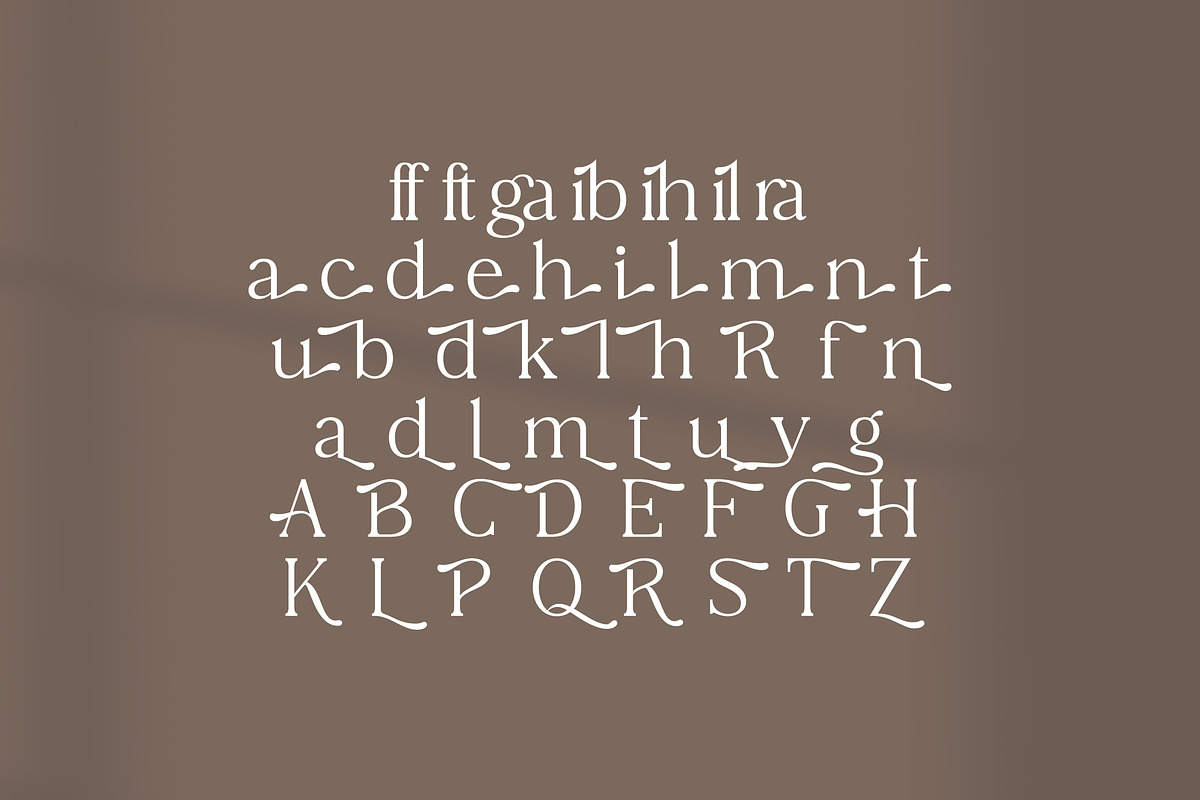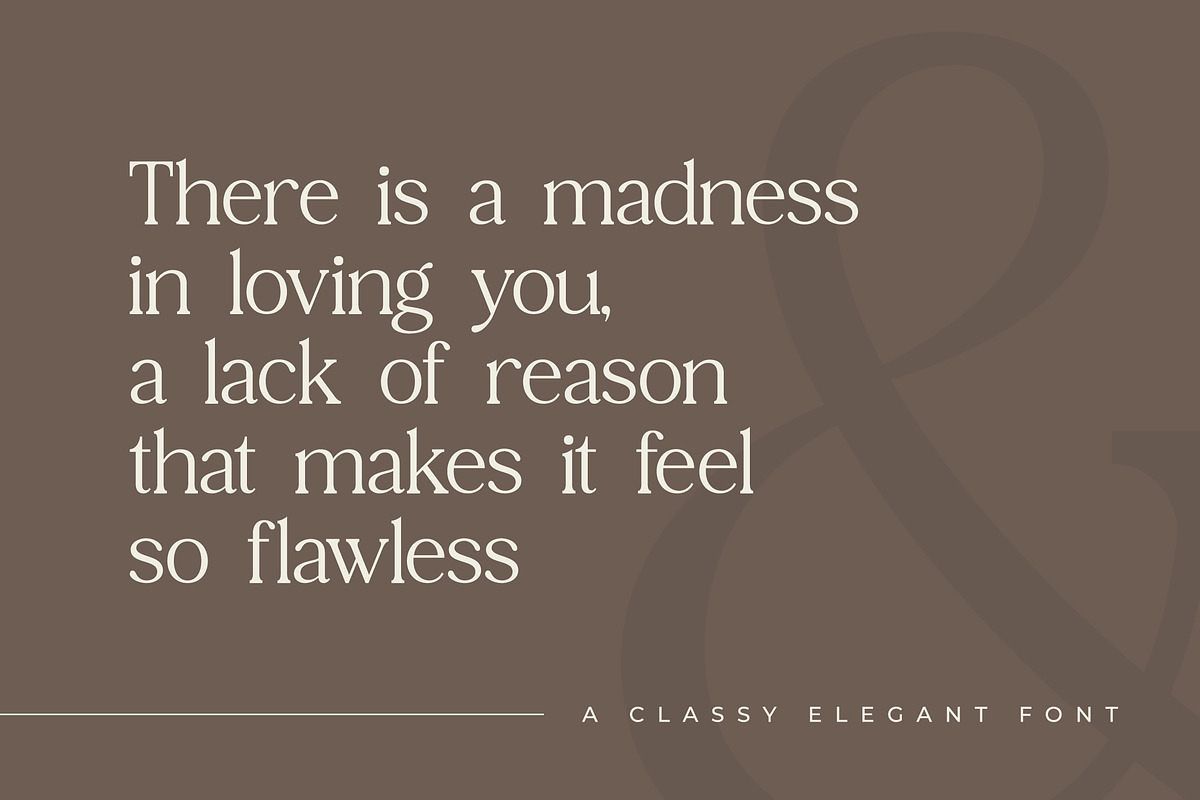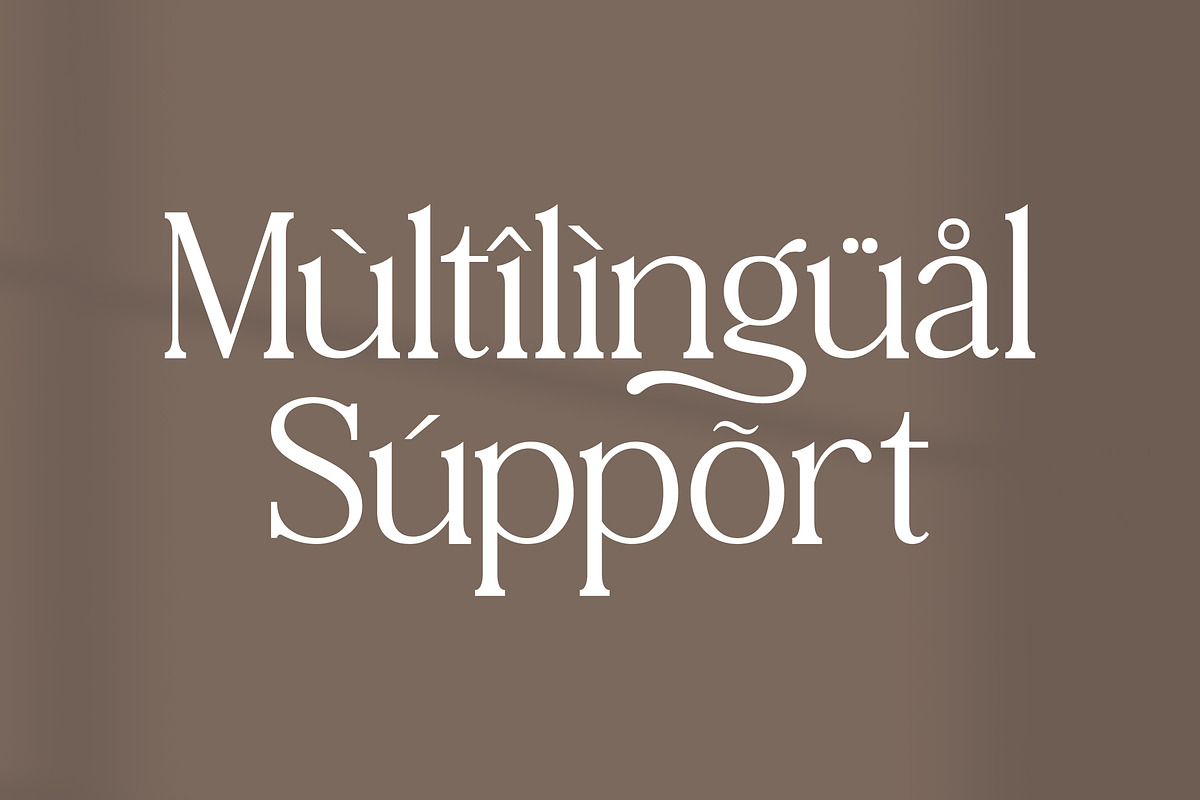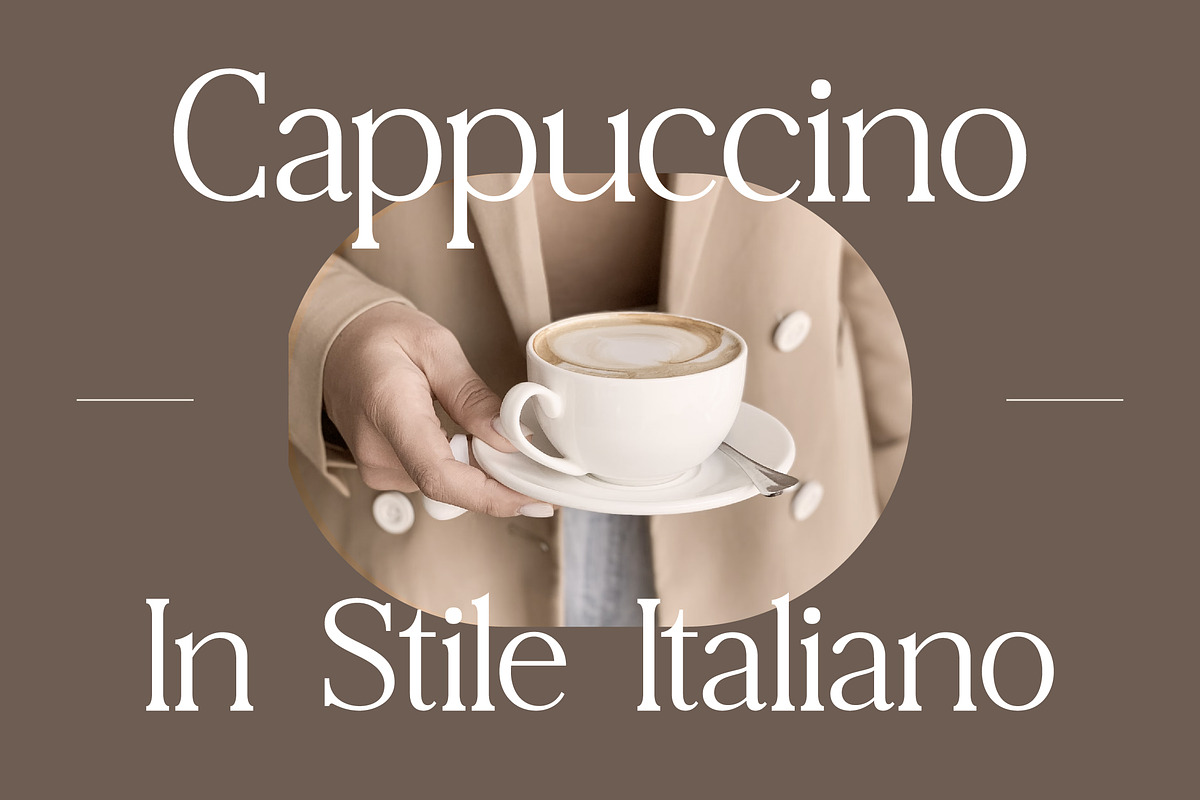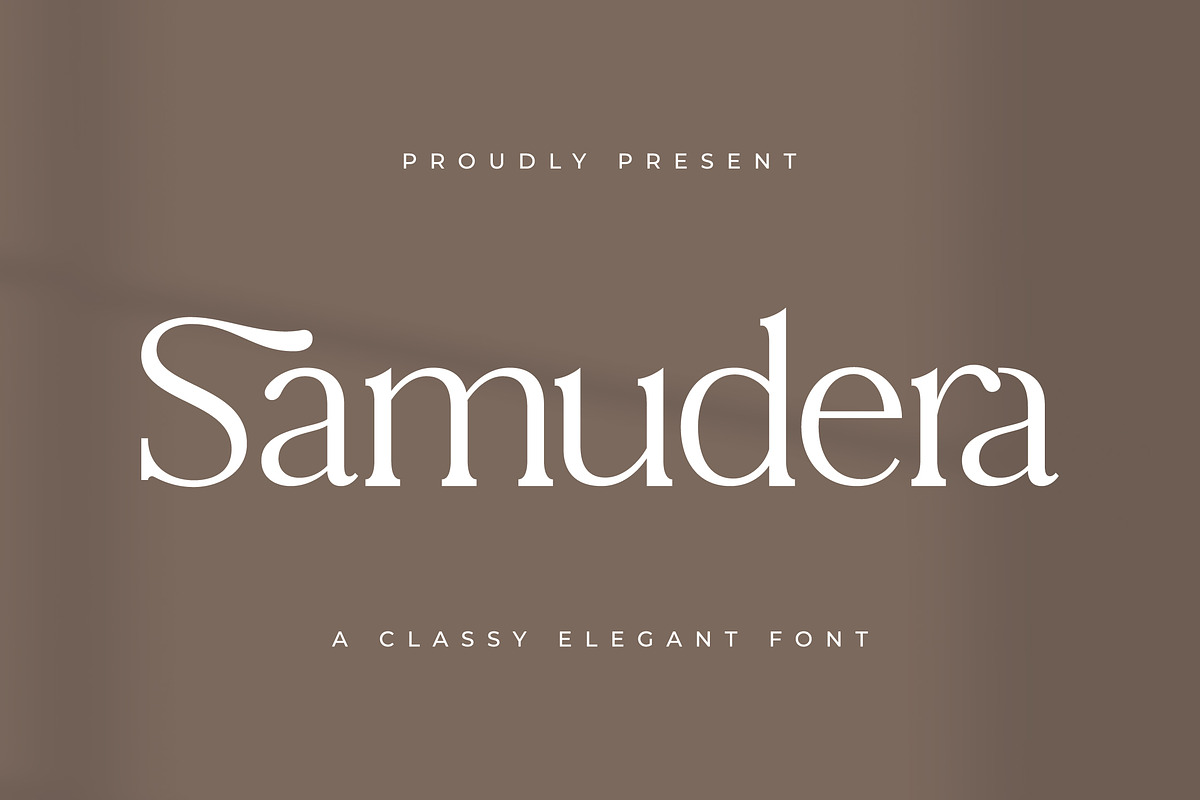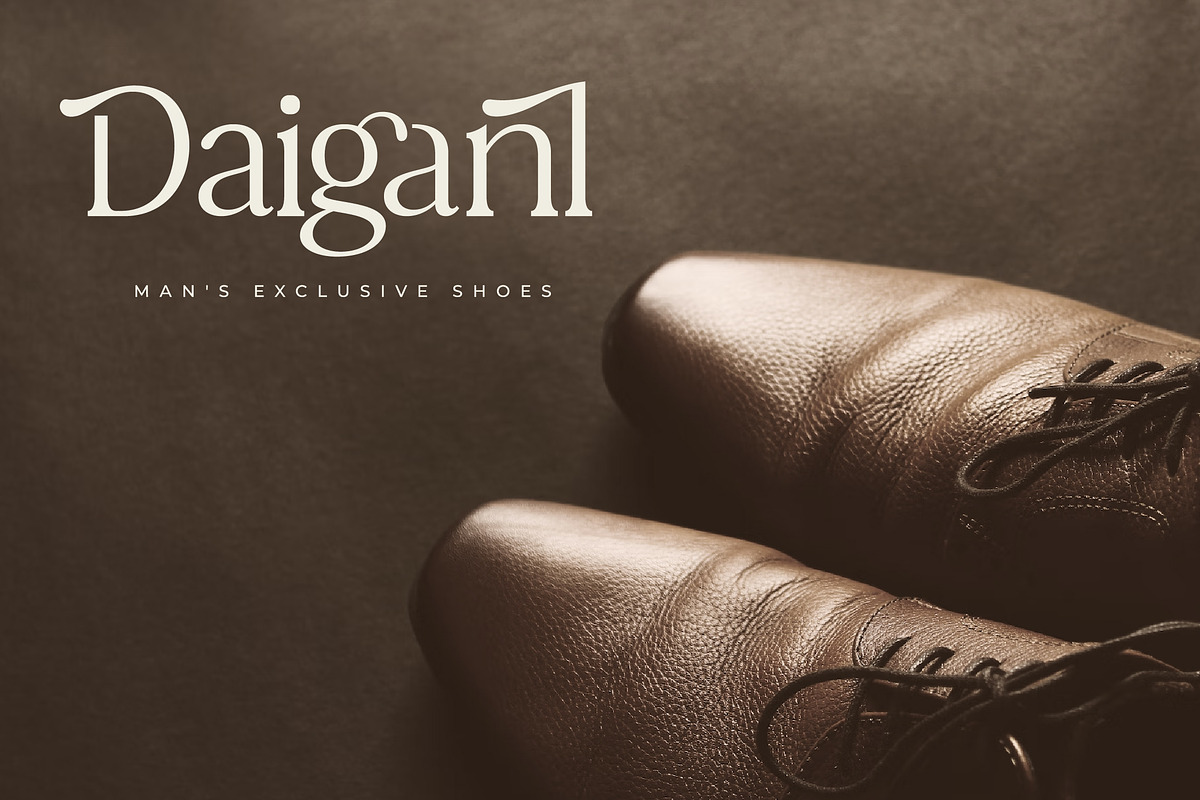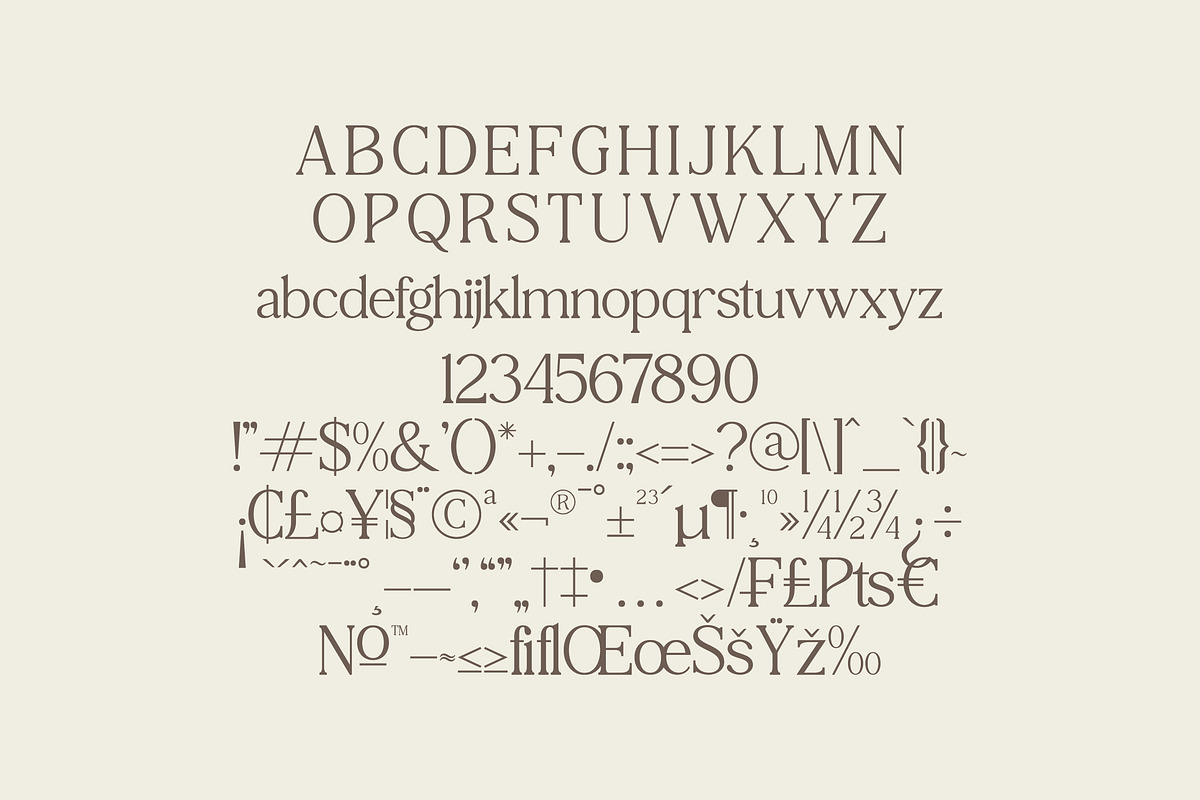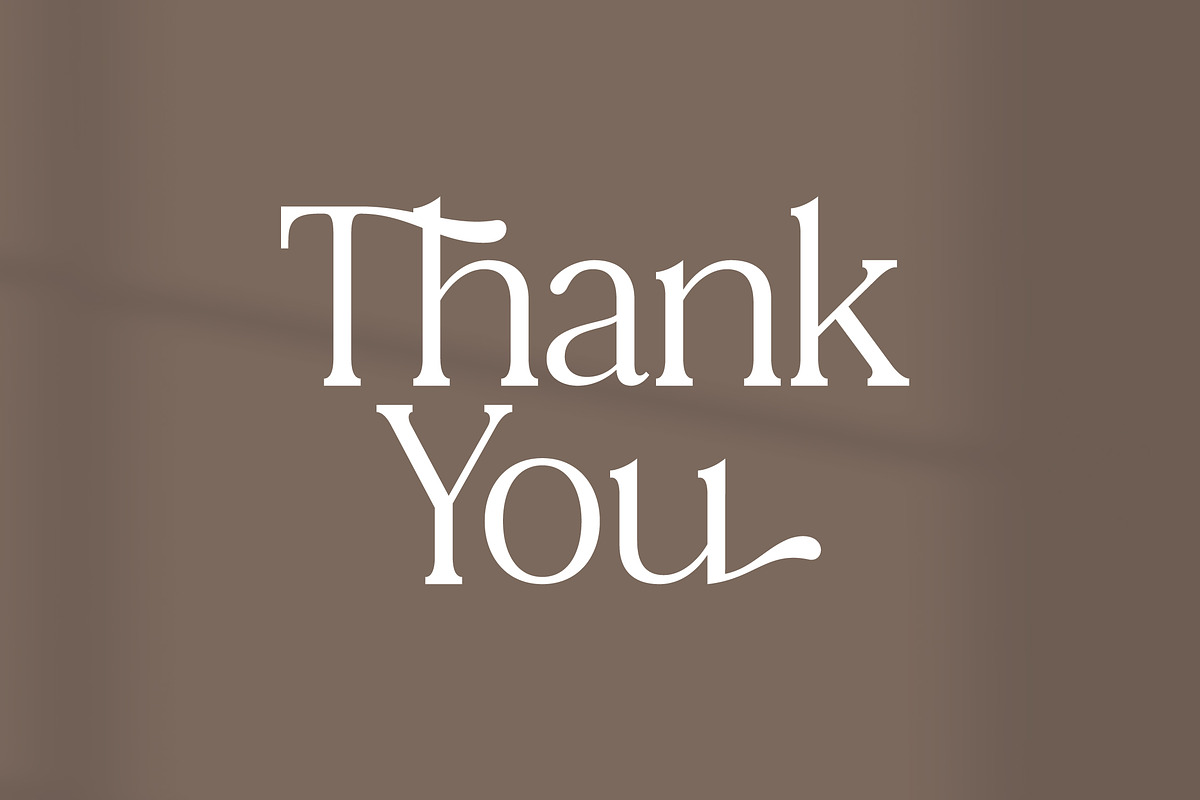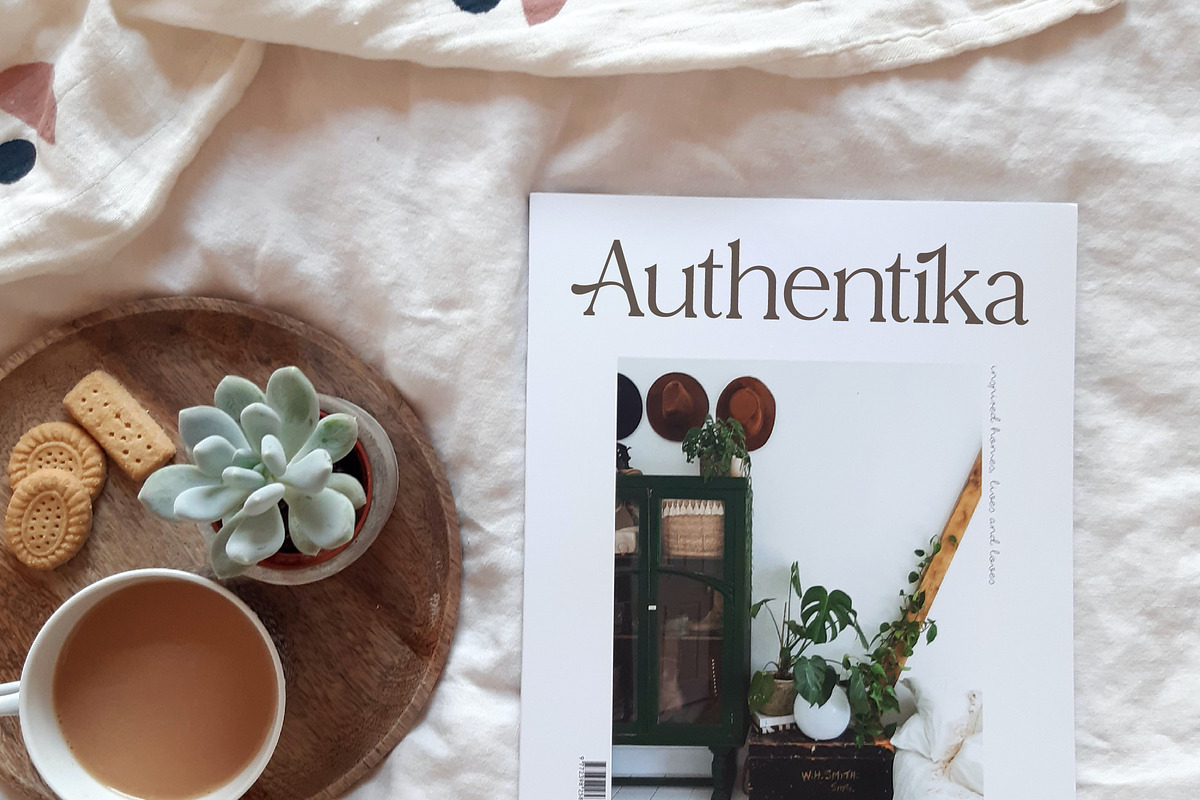
Samudera Classy Elegant Font
Proudly present Samudera Typeface , created by Storytype, A serif modern and classic typeface that has own unique style & modern look. This typeface is perfect for an elegant & luxury logo, book or movie title design, fashion brand, magazine, clothes, lettering, quotes, and so much more.